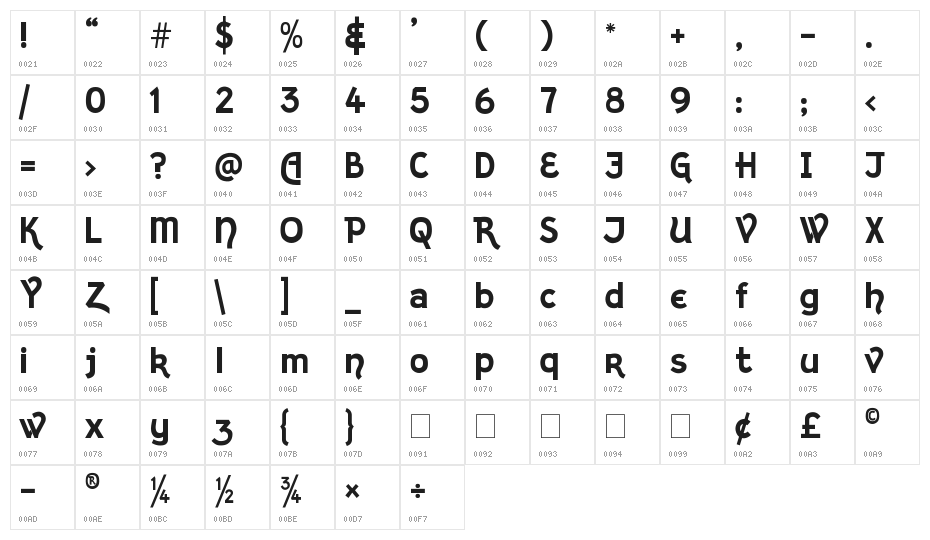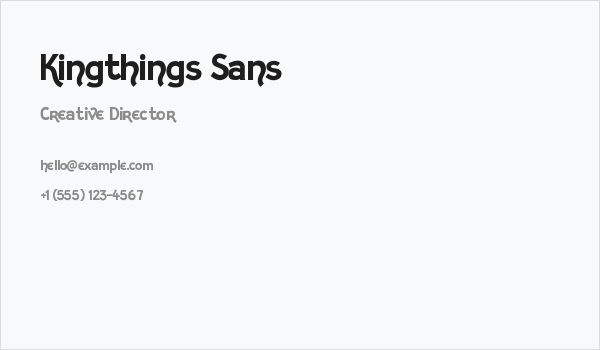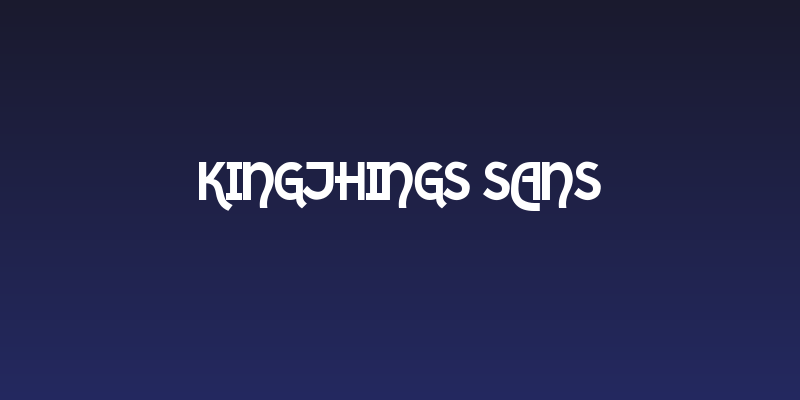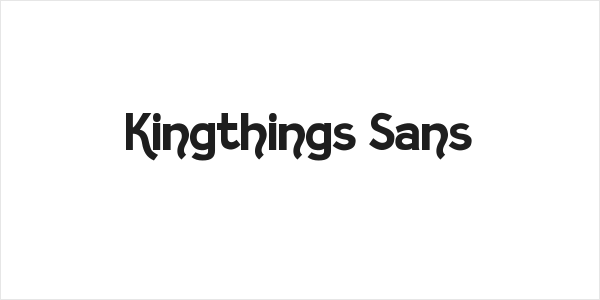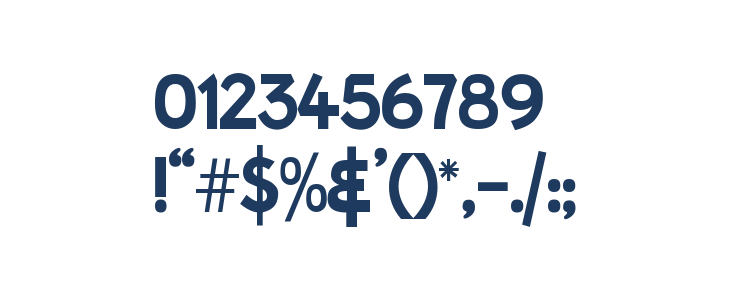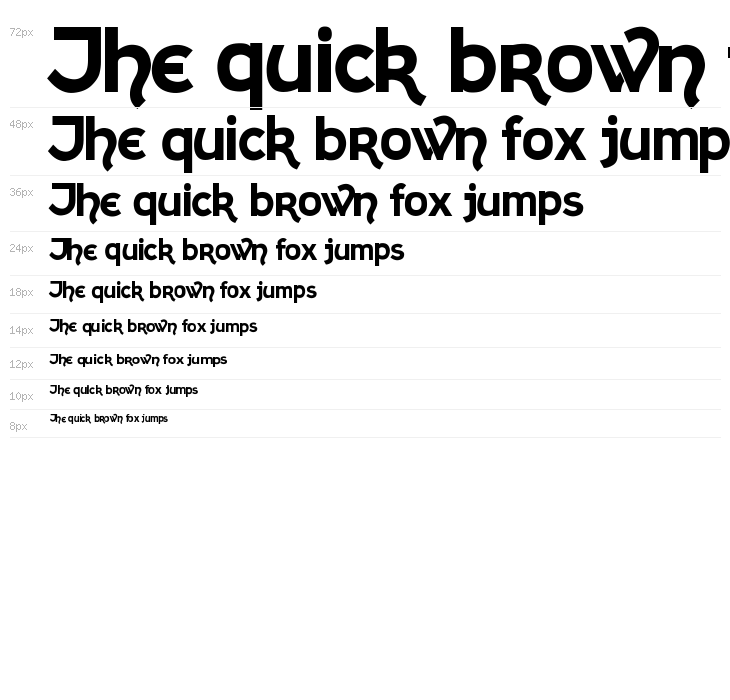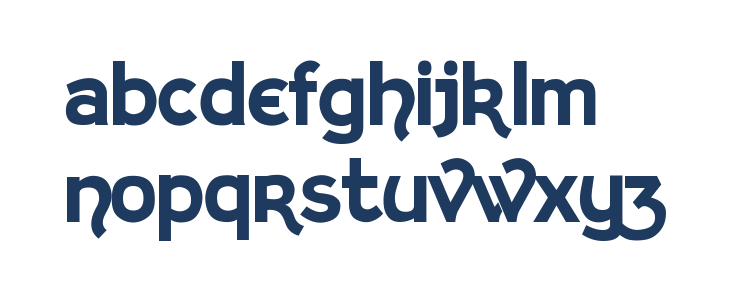
Kingthings Sans Font
Kingthings Sans Description
This font features a bold and playful design with a unique twist on traditional sans-serif styles. The characters are rounded and have a distinct geometric influence, with some letters incorporating unexpected curves and angles that add a whimsical touch. The uppercase letters are particularly striking, with a strong presence and a slightly condensed form. The lowercase letters maintain a consistent style, ensuring readability while still offering a creative flair. Numbers and special characters follow the same design principles, making them cohesive with the rest of the typeface. This font is ideal for projects that require a fun and modern aesthetic.
| Proposed Projects | Ideal for children's books, playful branding, posters, and creative digital content. |